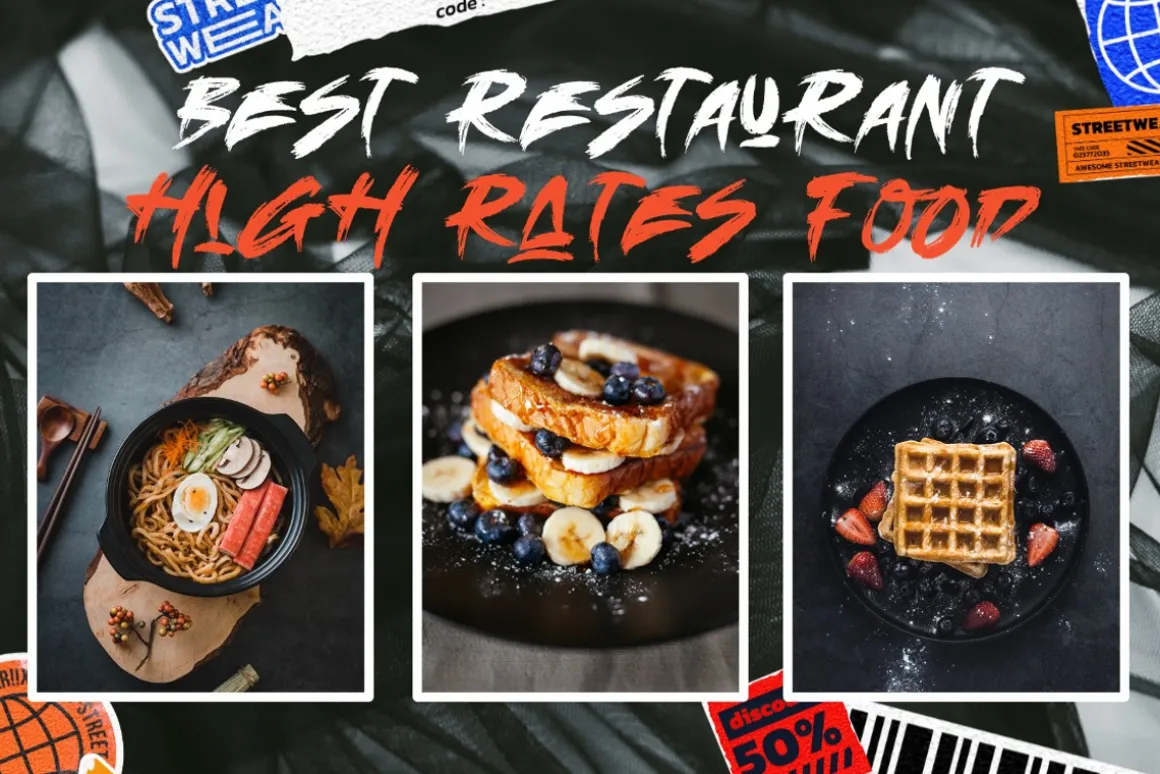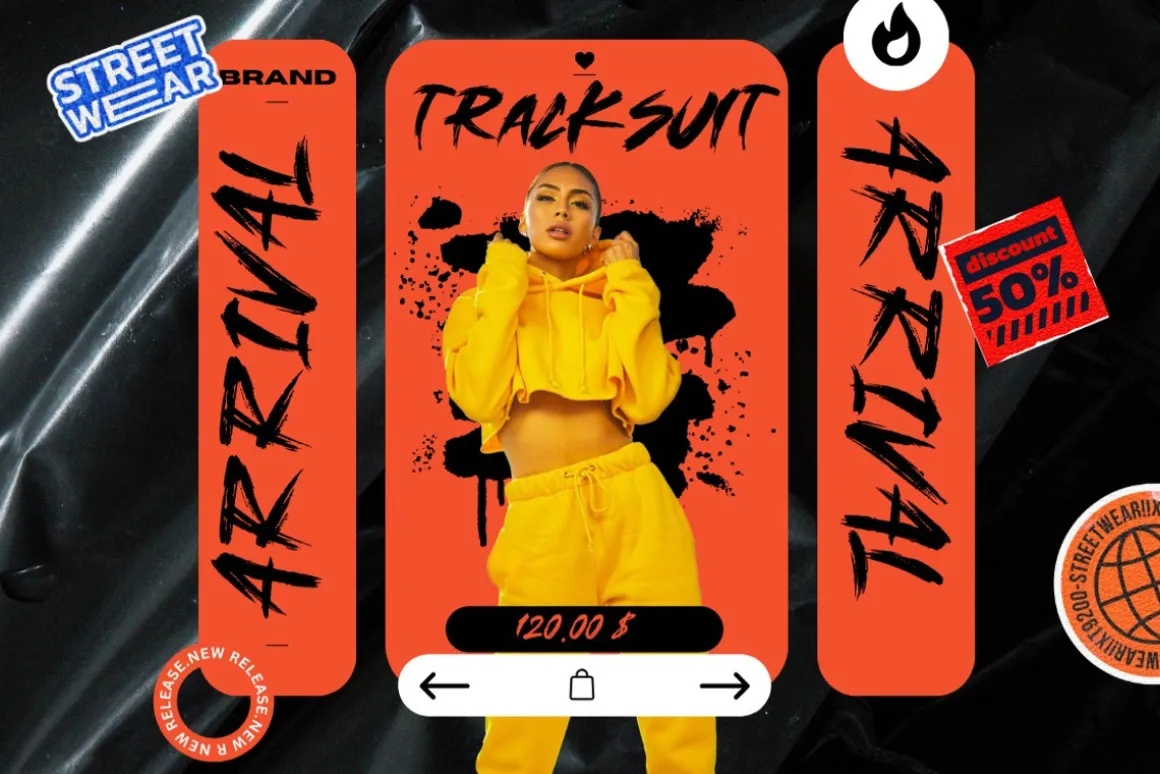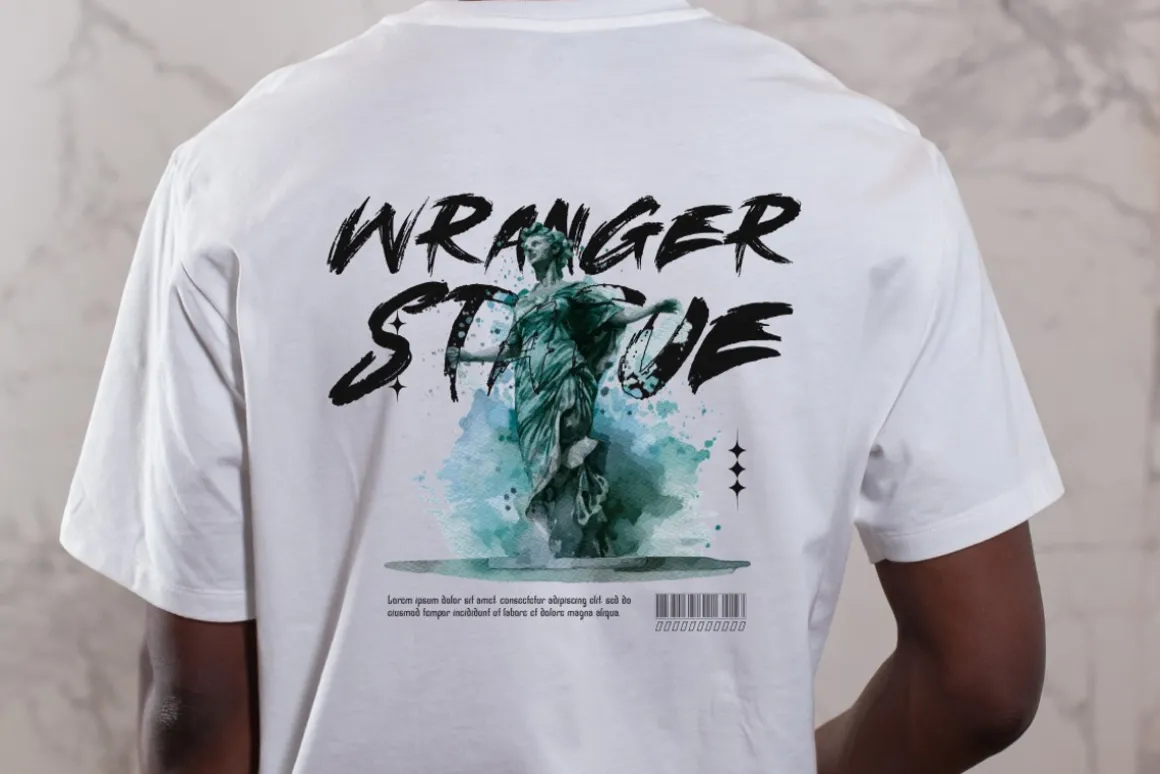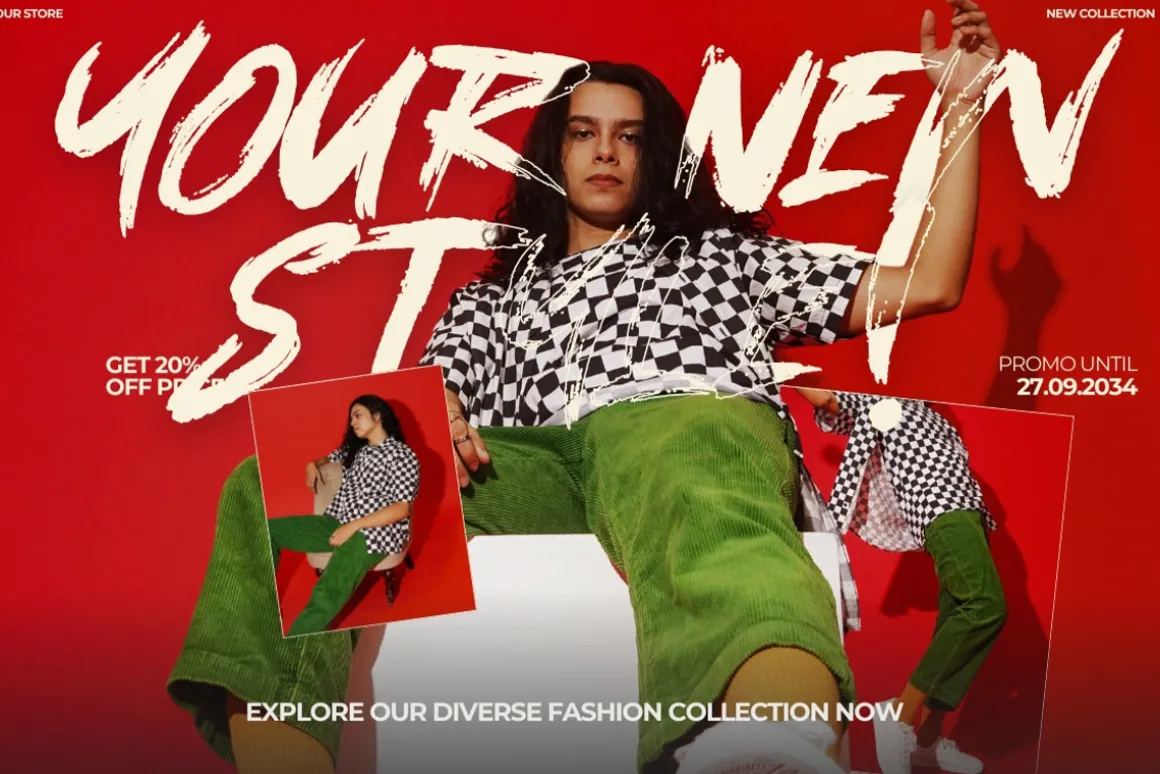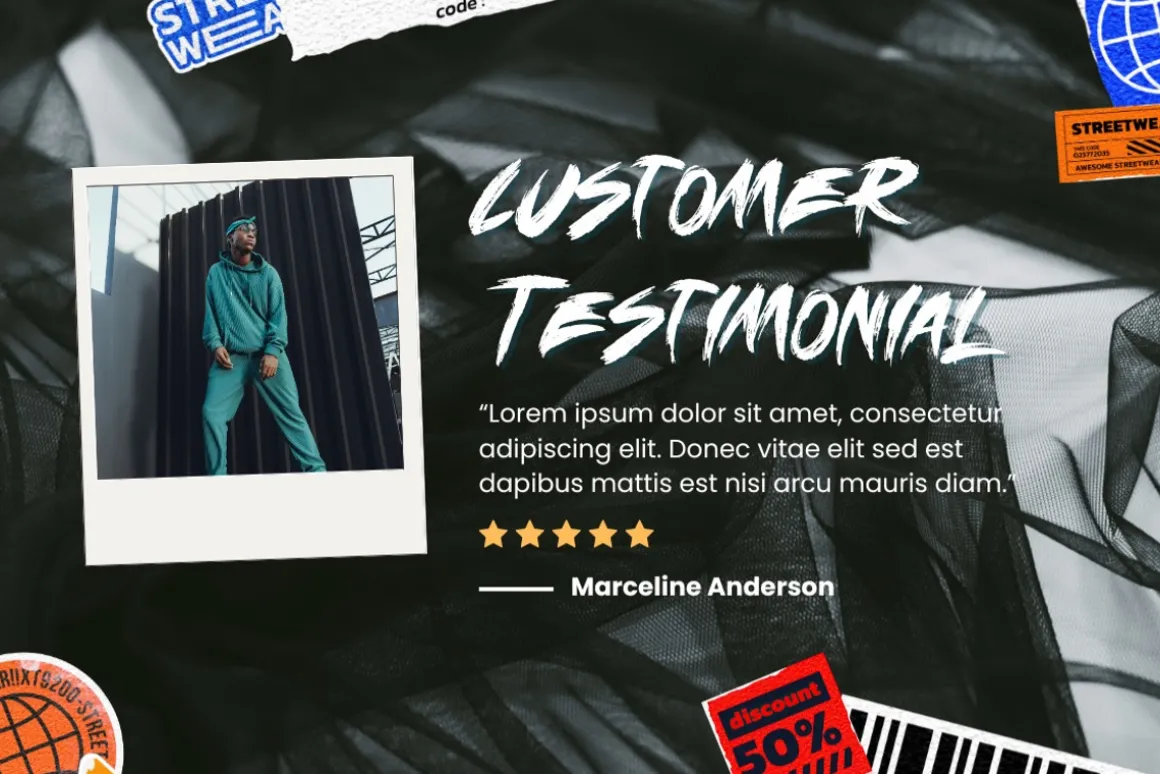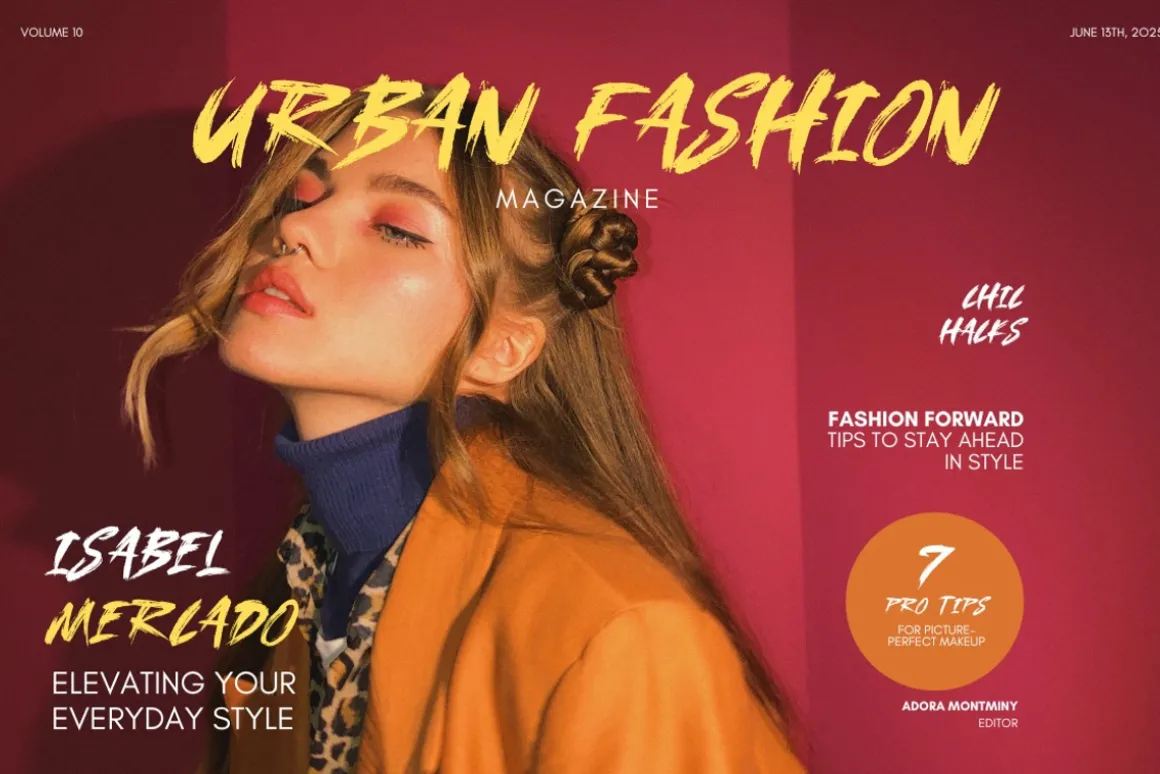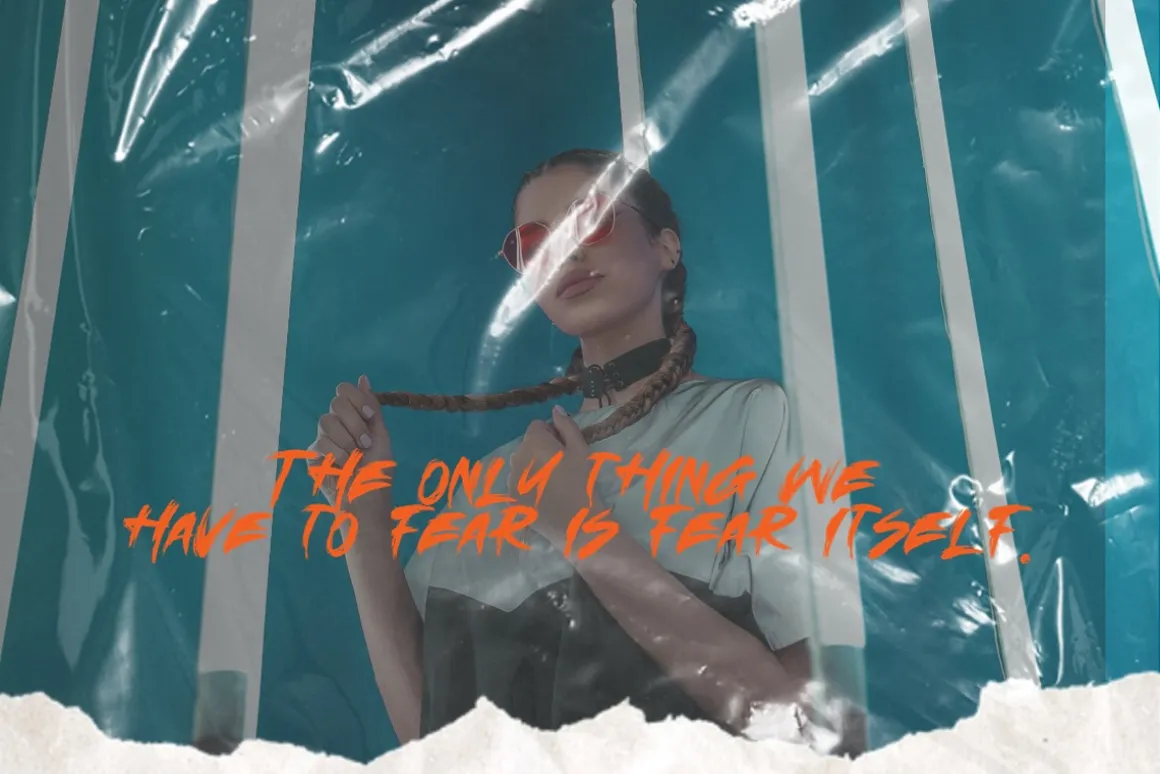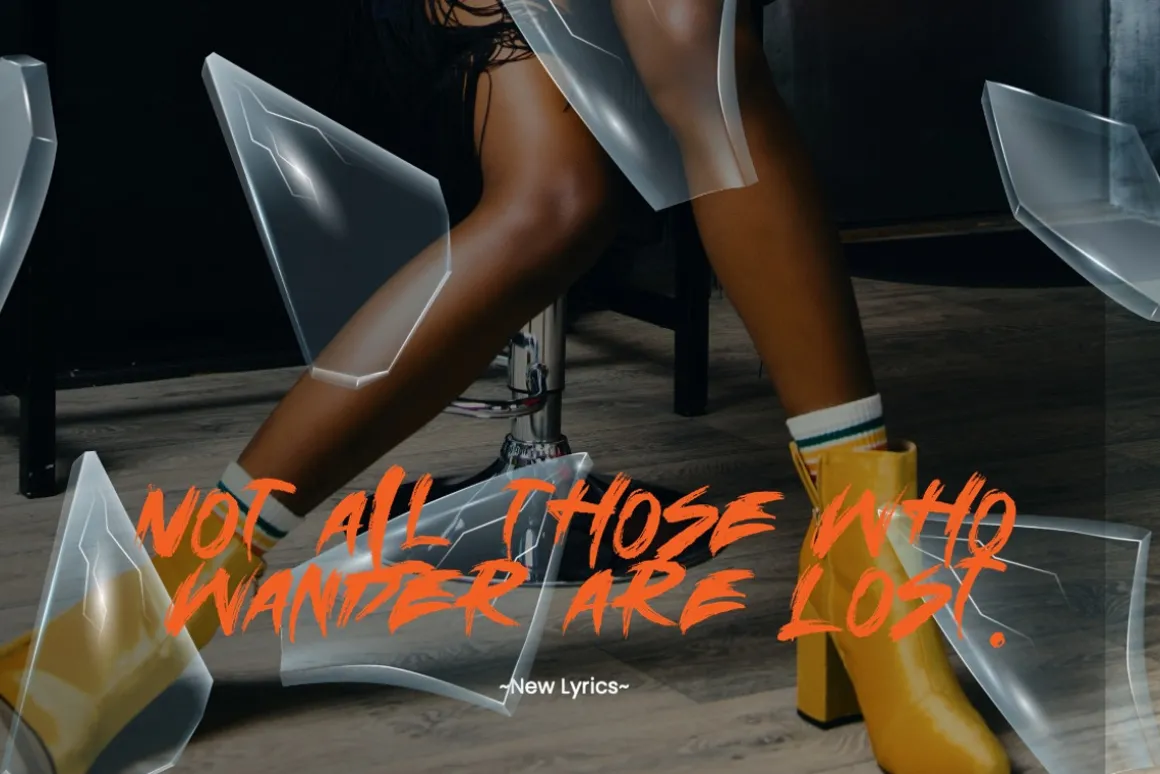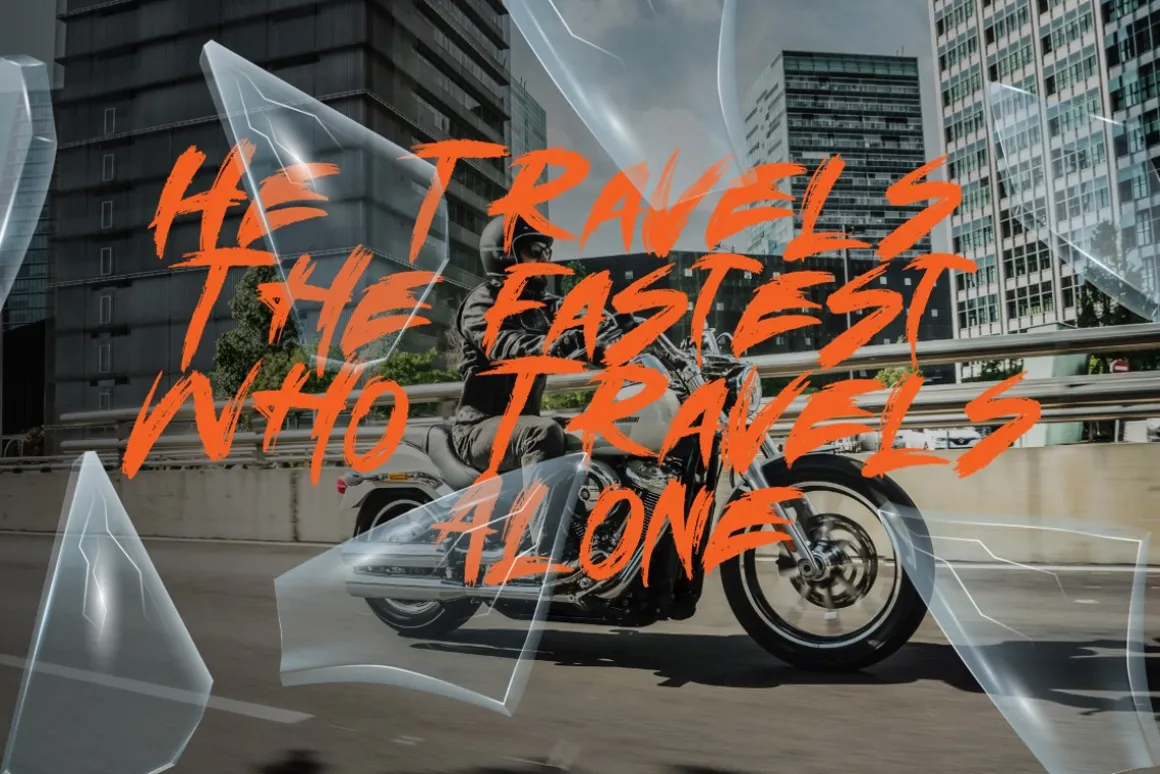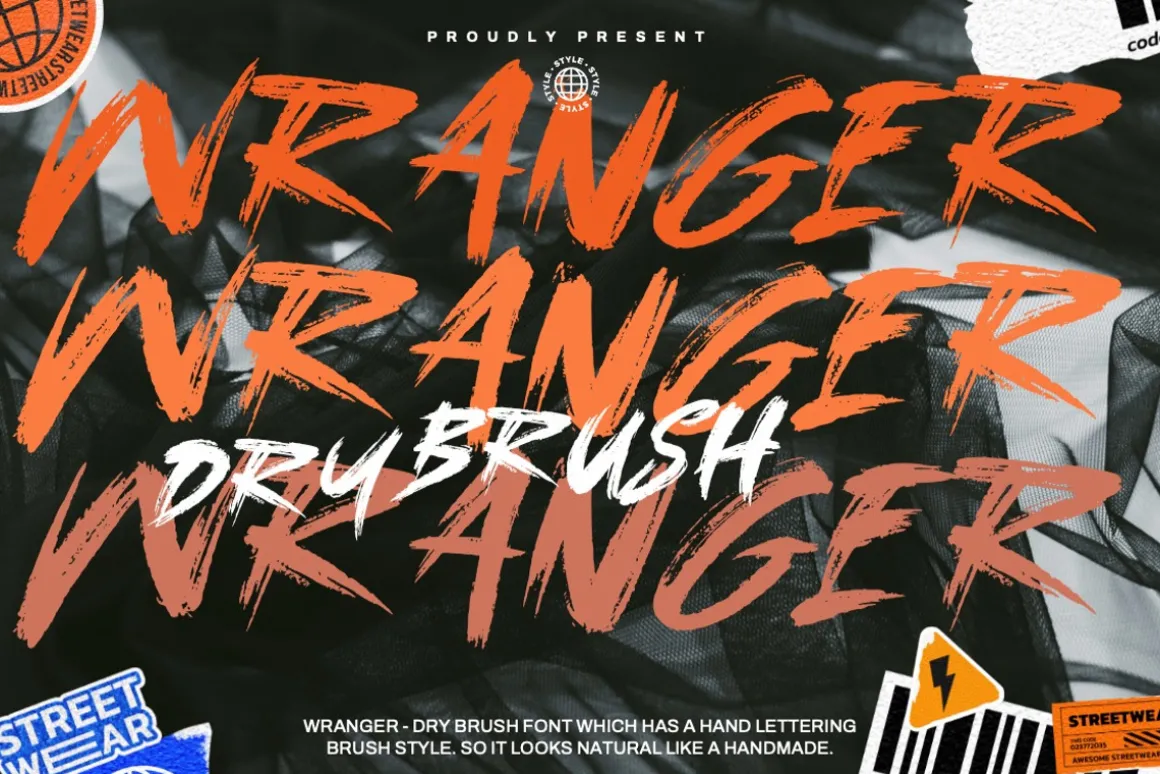
IntroducingWranger – Dry Brush Font
Wranger – Dry Brush Font which has a hand lettering brush style. So it looks natural like a handmade. This texture is very detailed. This font is suitable for logos, product branding, printable templates or for text overlay to any background image, also suitable for use in title design. Such as apparel, invitations, books tittle, stationery design, quotes, branding, greeting card, t-shirt, packaging design, poster and more.